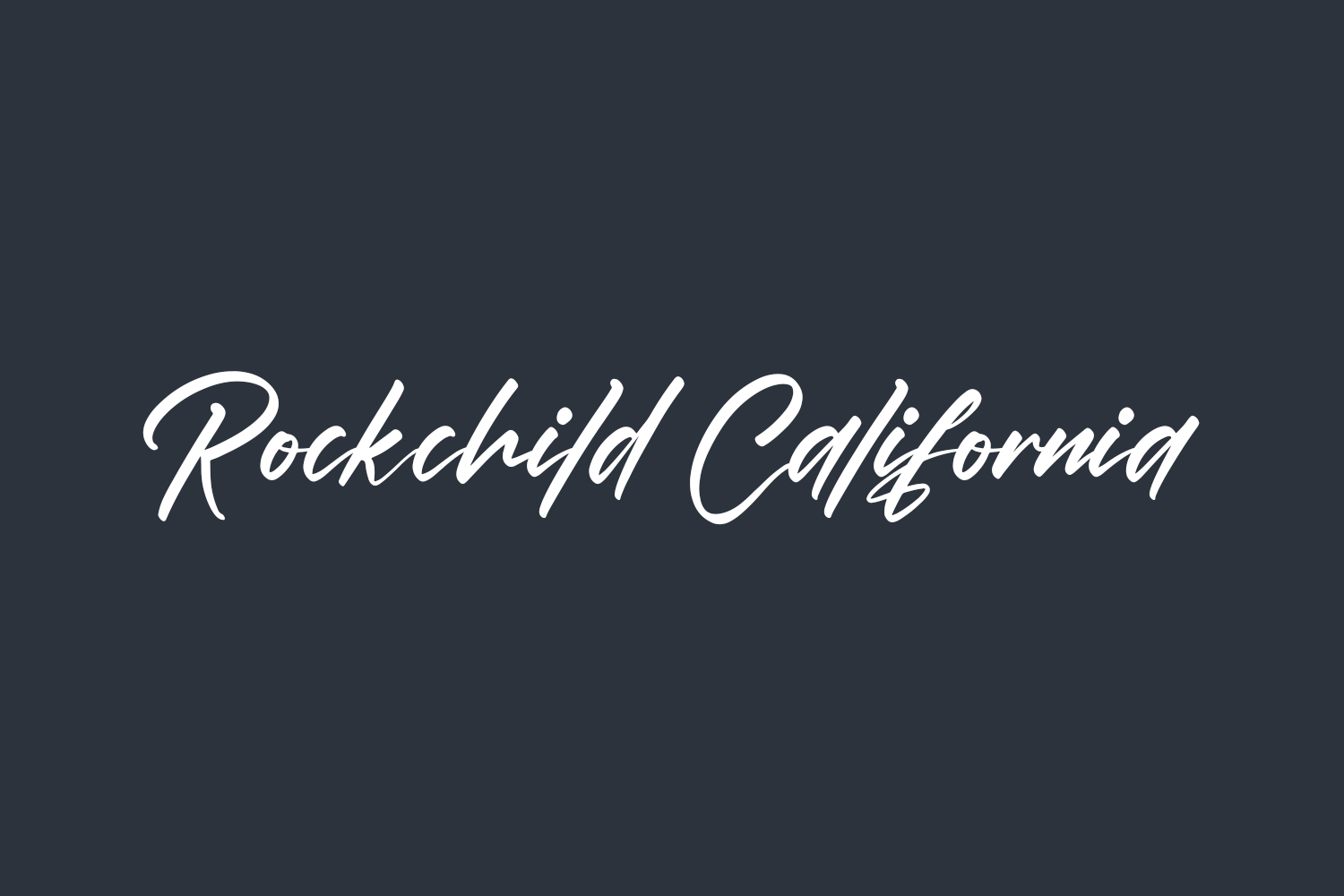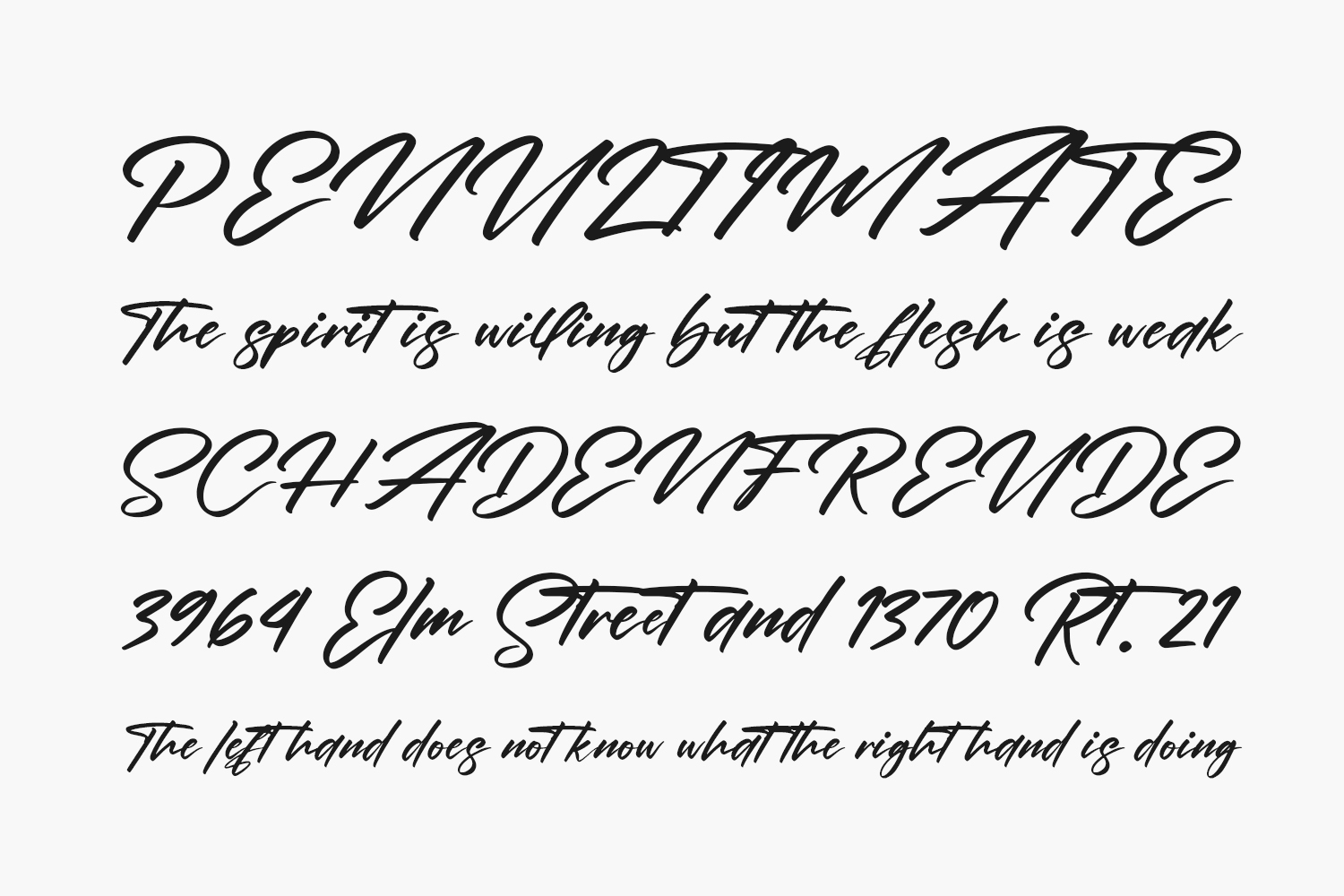
Rockchild California Free Font Family is an exquisite handwritten font, masterfully designed to become a true favorite. It maintains its classy calligraphic influences while feeling contemporary and fresh. Fall in love with it and bring your projects to the highest levels. Rockchild California Free Font Family was designed by Perspectype Studio and is free for personal use only. Please purchase the full version for commercial use.